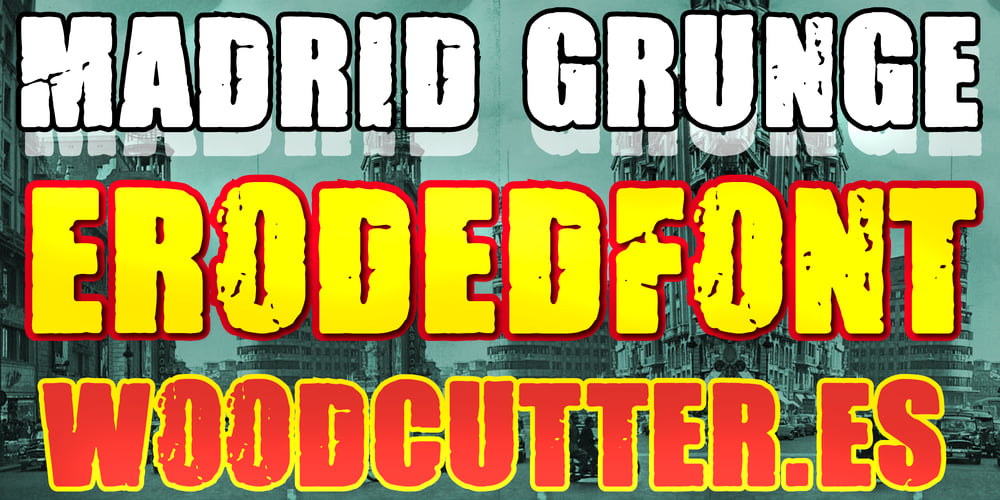
Madrid Grunge Font Family was designed by Jordi Manero and published by Woodcutter. Madrid Grunge contains 1 styles and family package options. “Madrid Grunge” is a typeface with bold, weathered letters, as if shaped by the erosion of stone. In strict uppercase, this font stands out for its robust and rough appearance, perfect for adding a touch of impact and strength to your designs. Ideal for posters, album covers, logos, and any project seeking a rugged and worn aesthetic. “Madrid Grunge” brings a sense of solidity and durability, capturing the essence of grunge in every stroke.